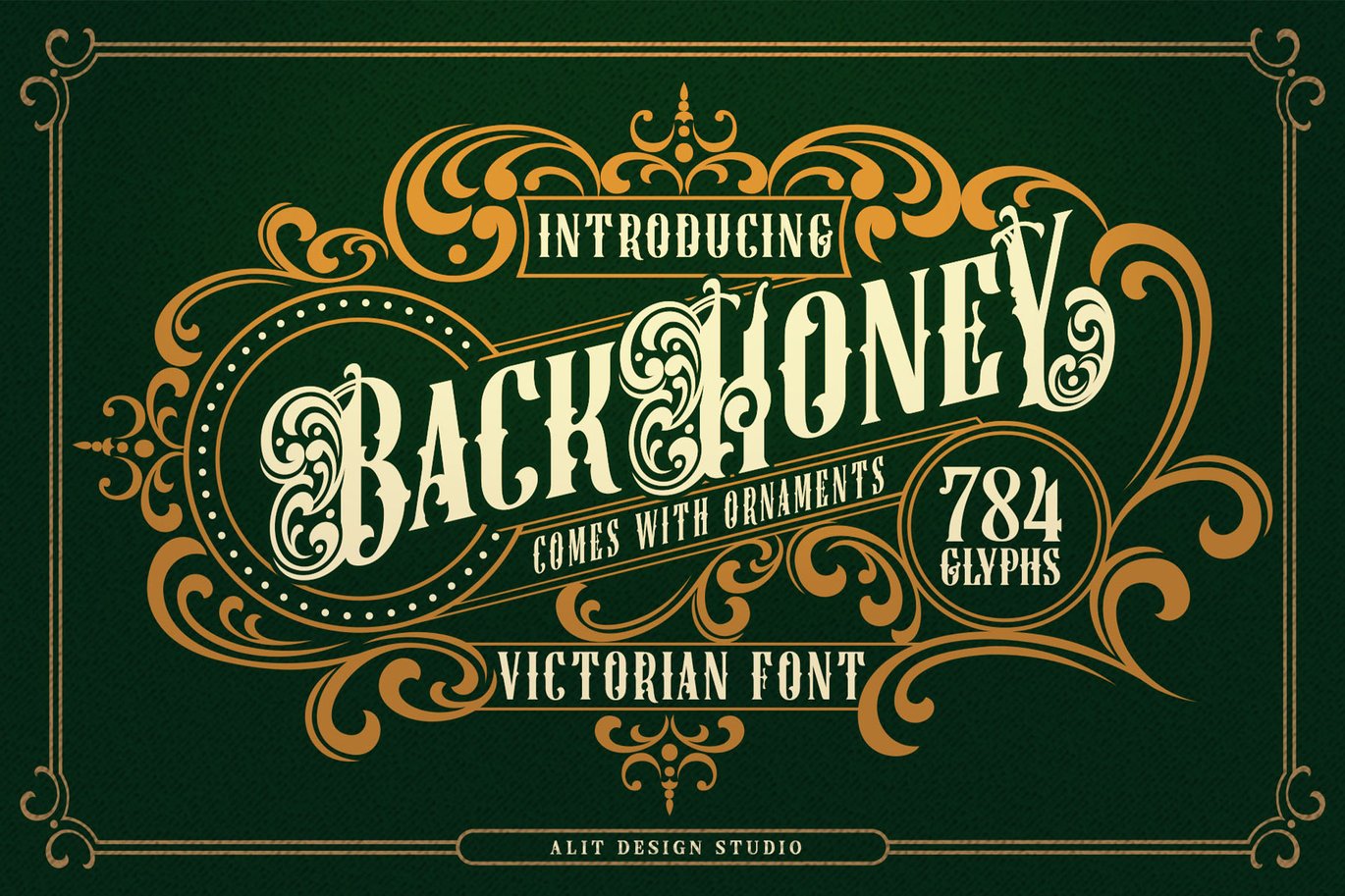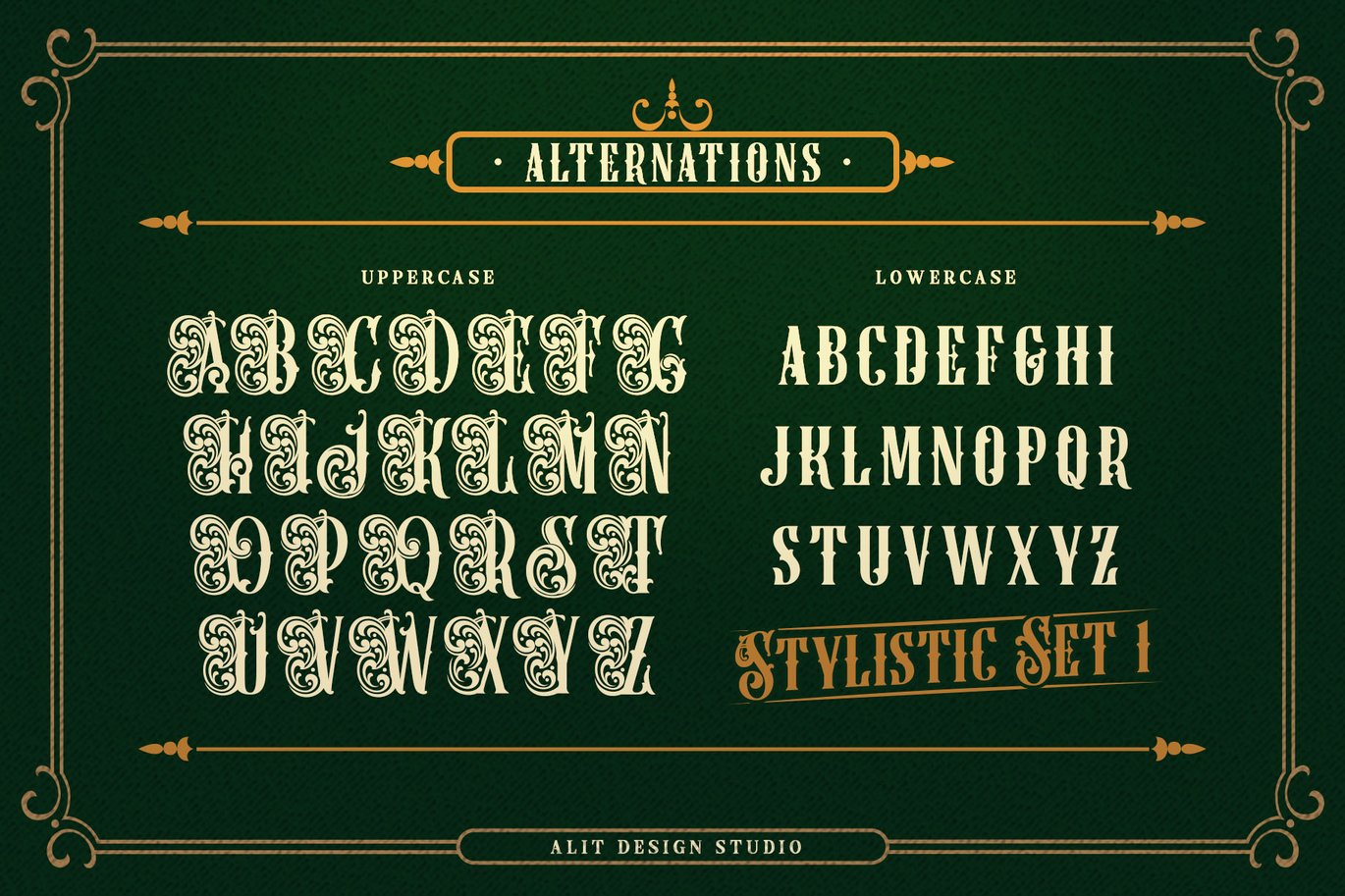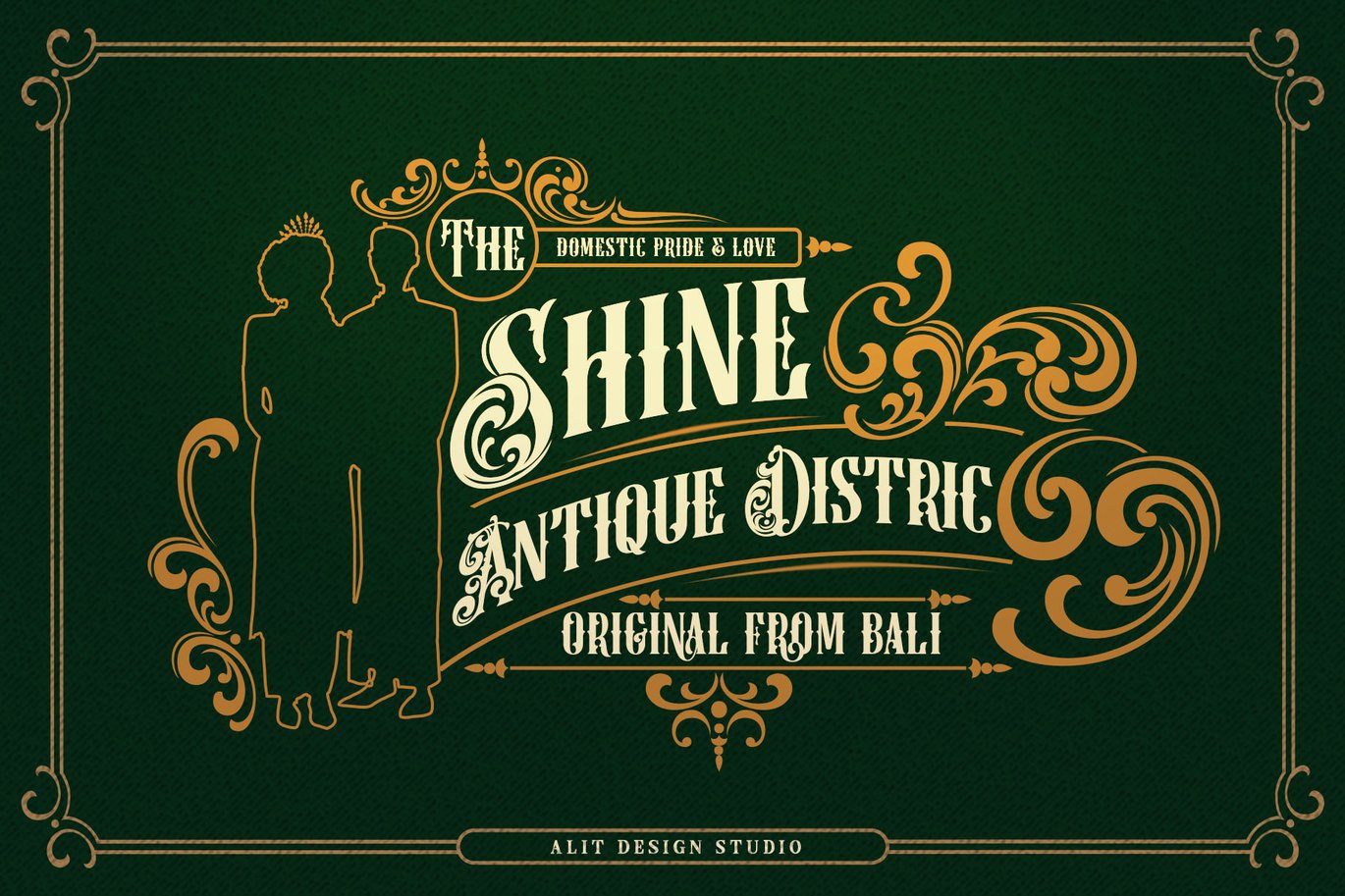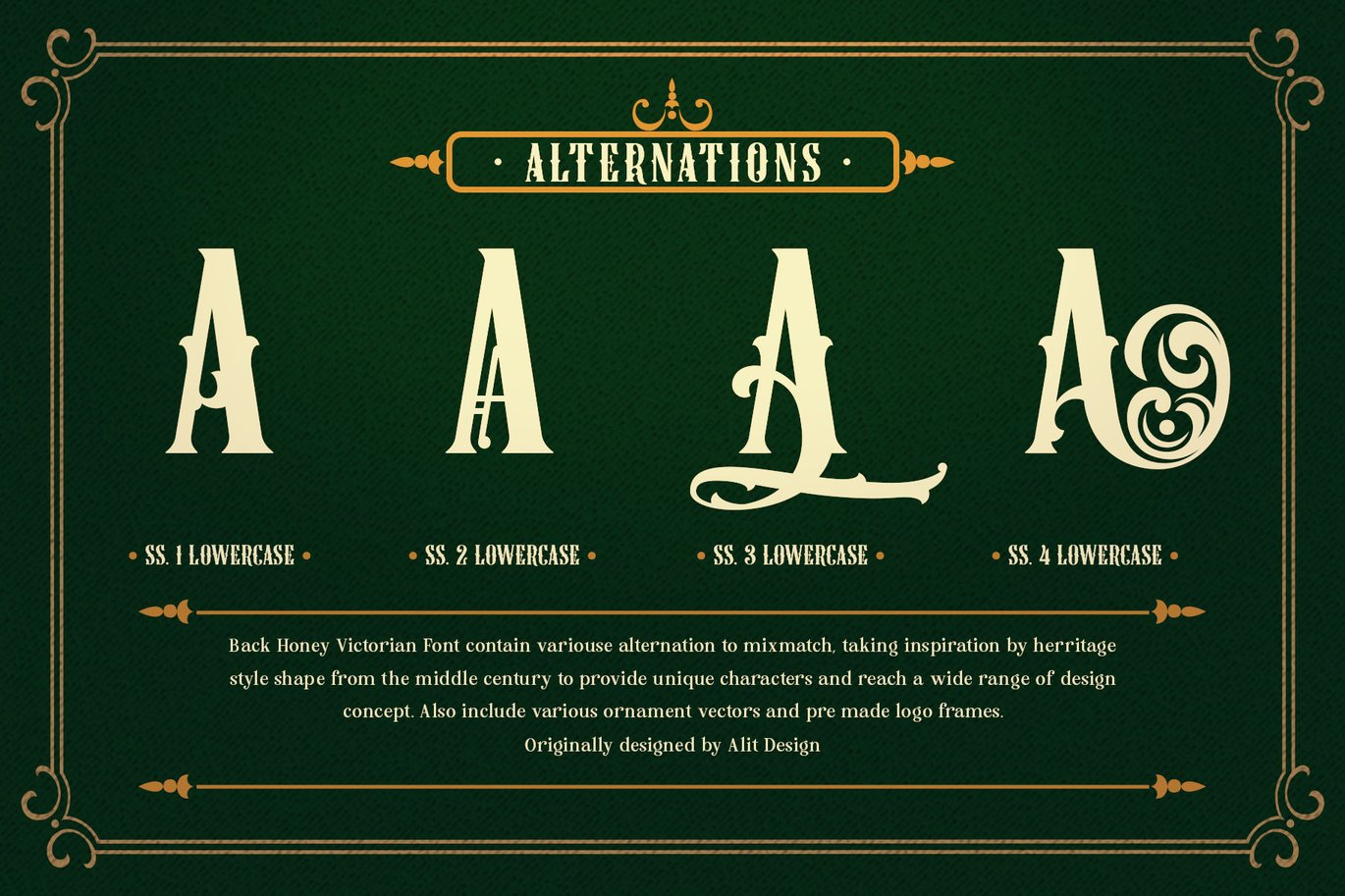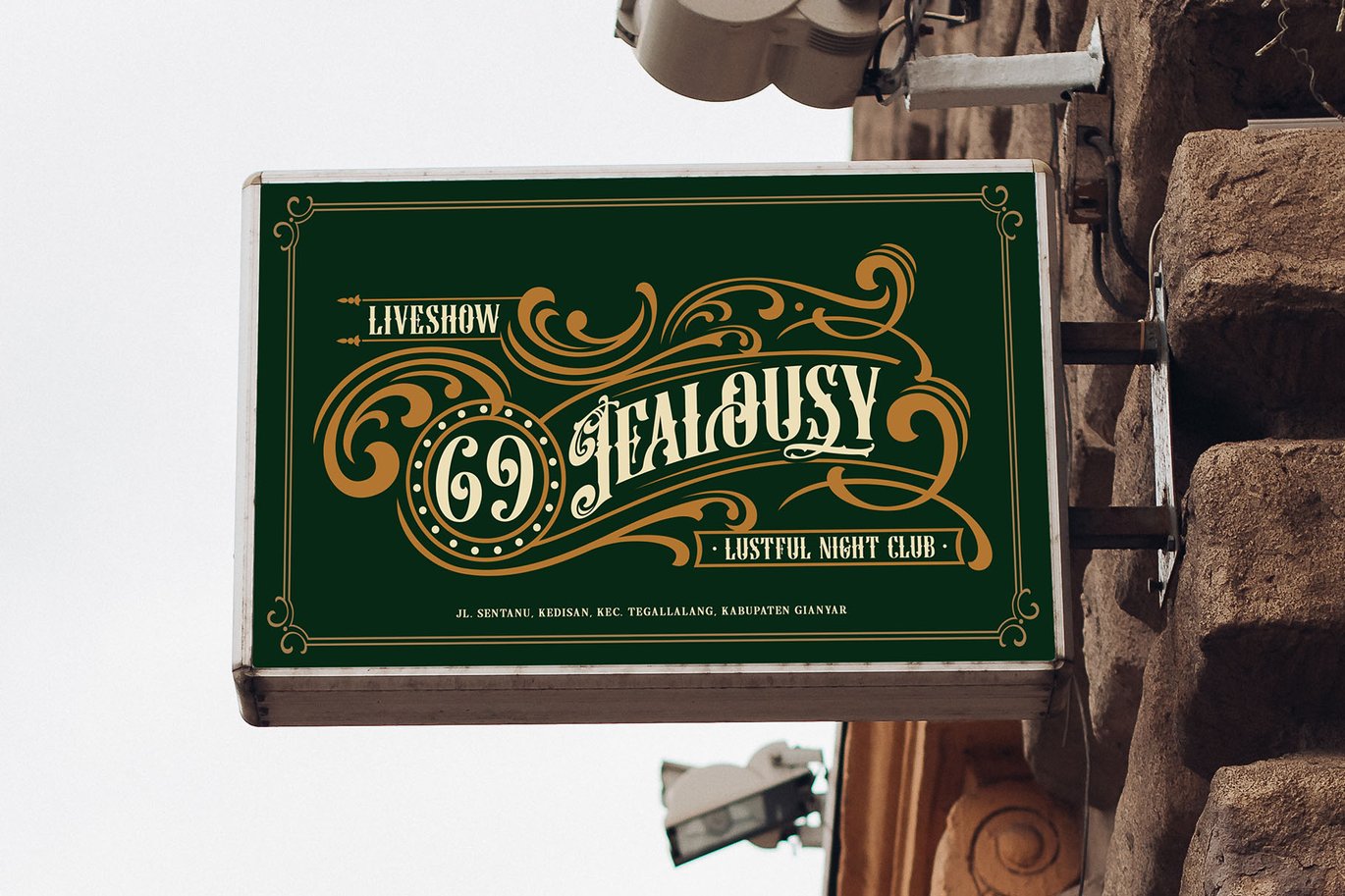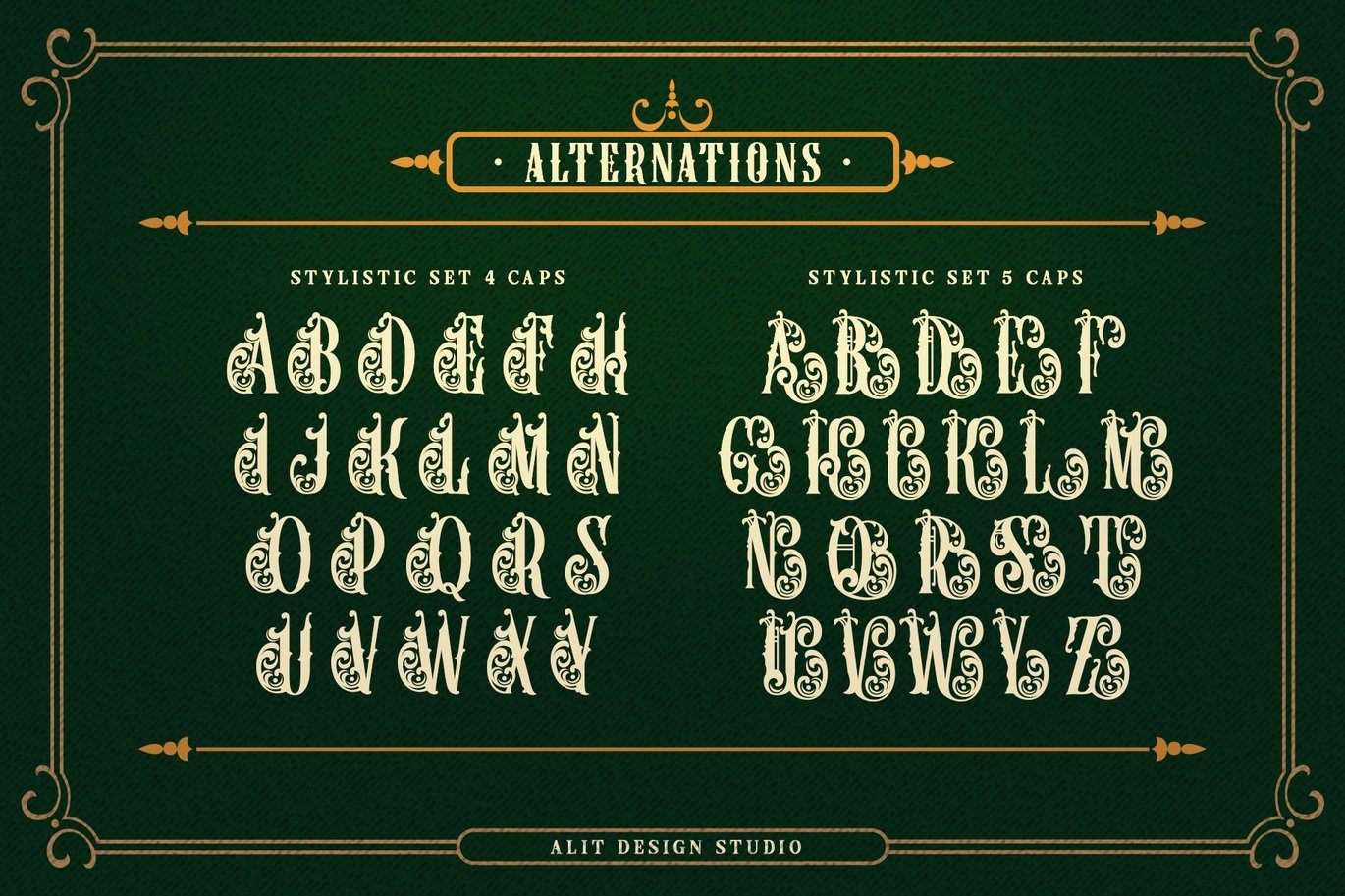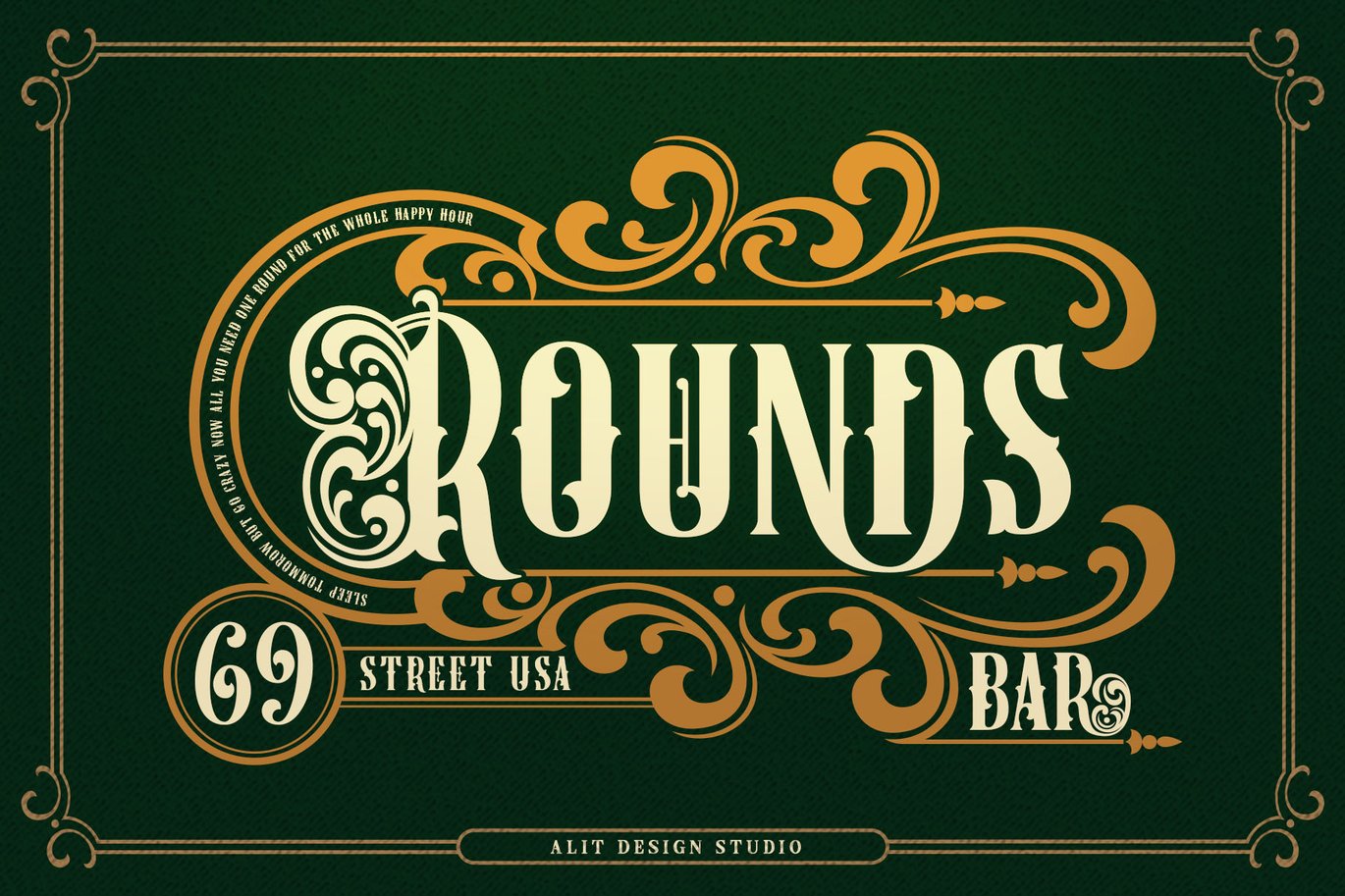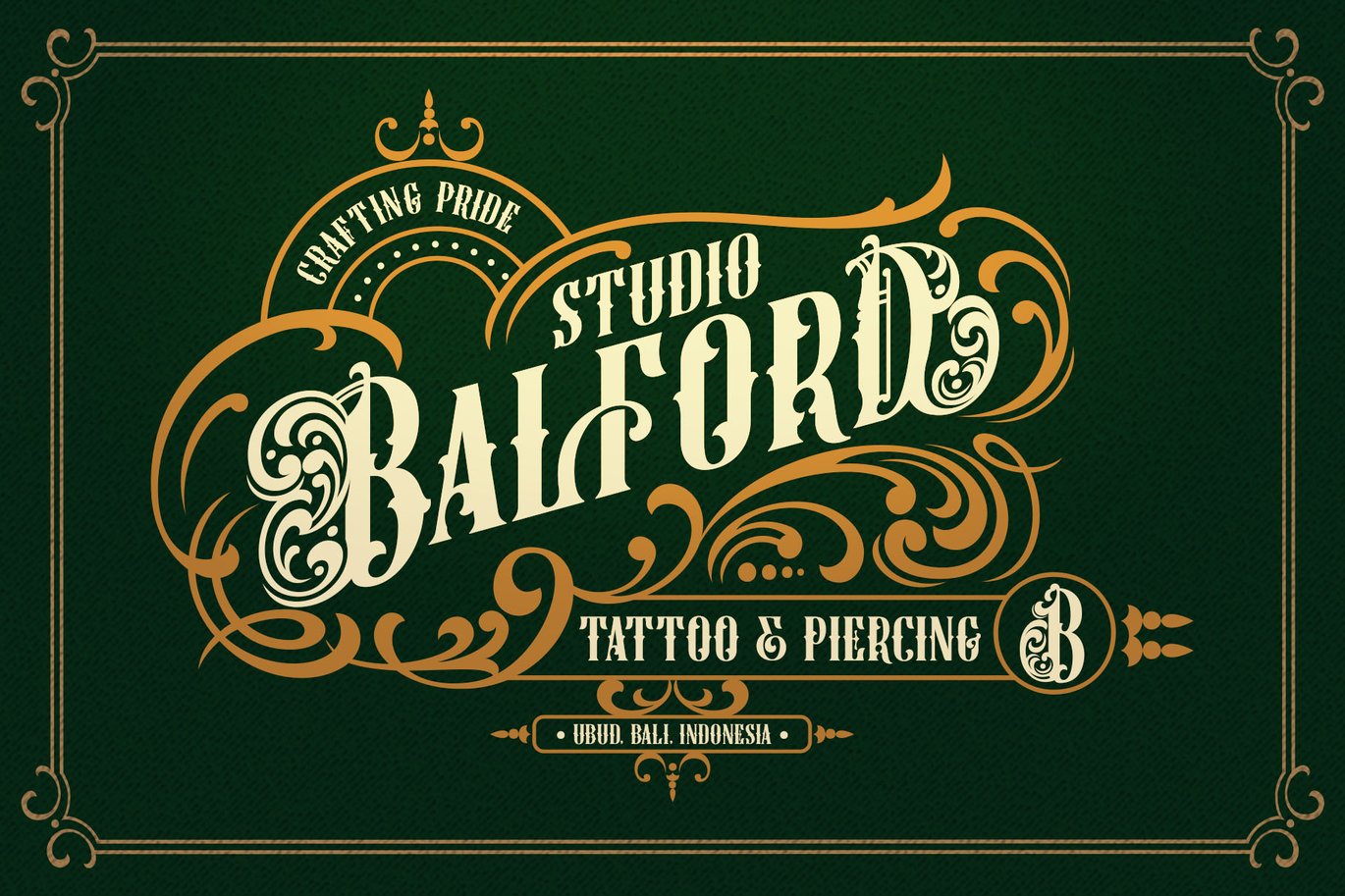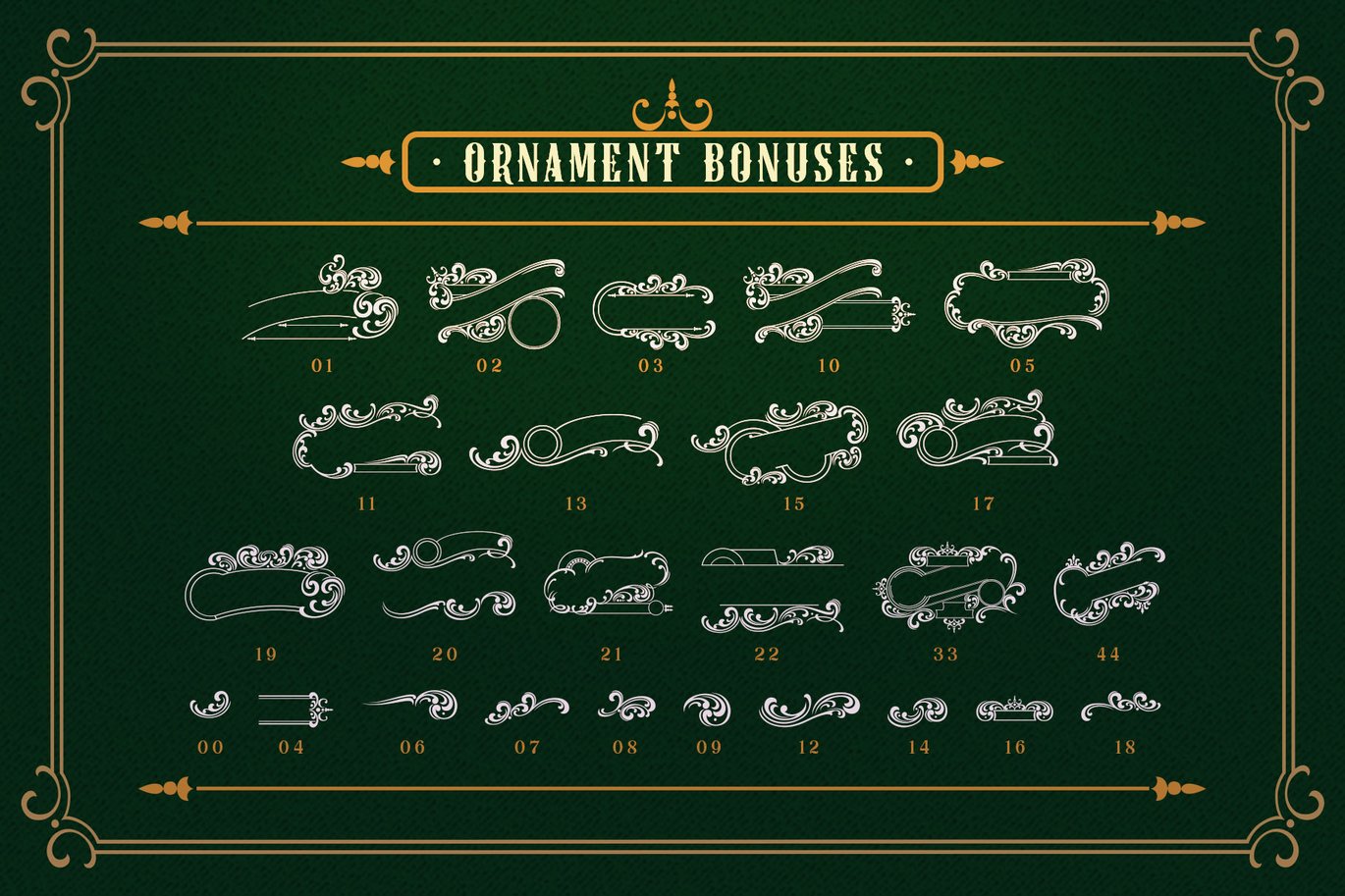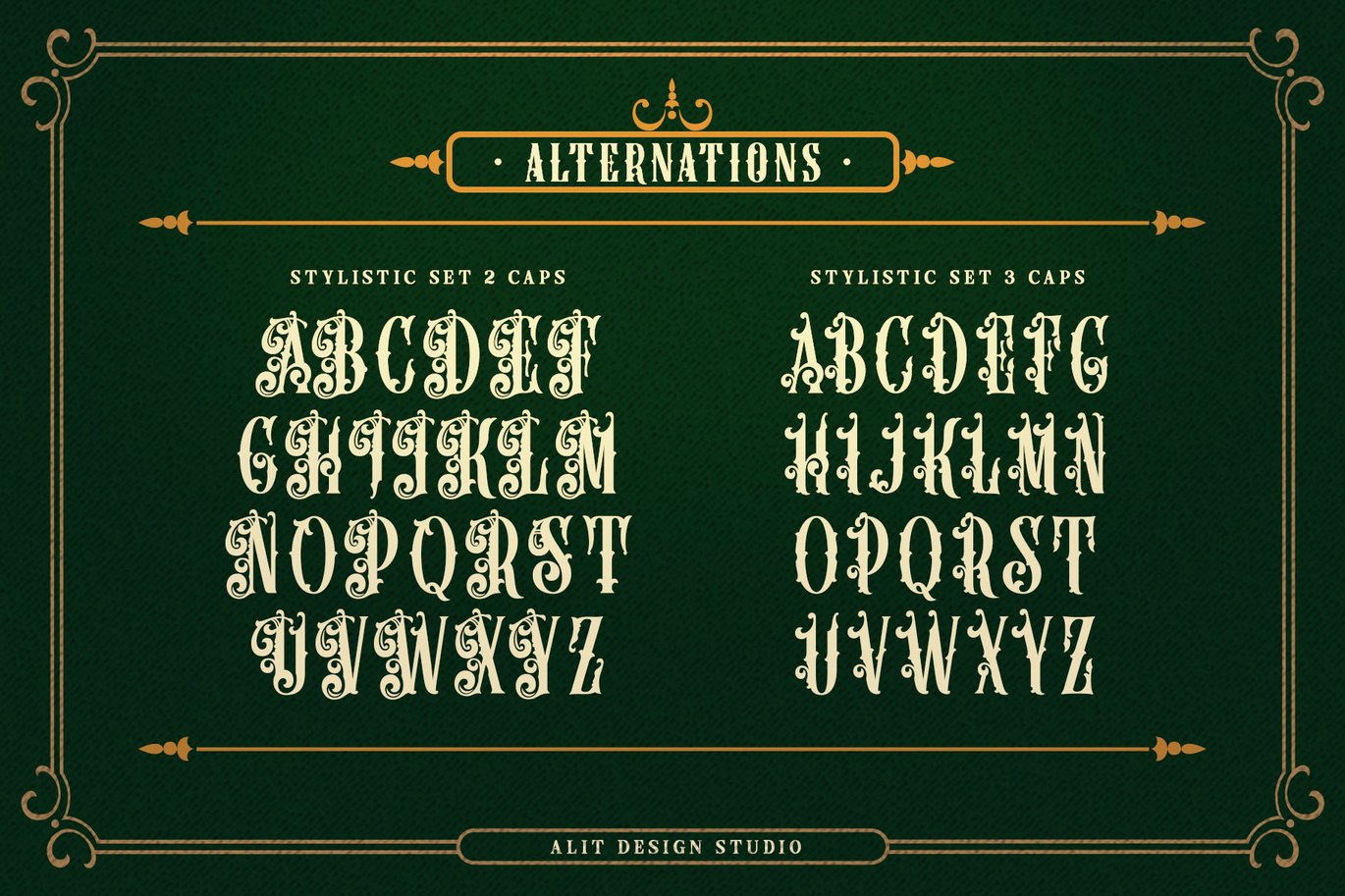
Black Honey Victorian Font
Product Description for Black Honey Victorian Font
Introducing Black Honey Victorian Font, a meticulously crafted typeface that brings the essence of Victorian elegance to modern design. This luxurious serif font combines vintage charm with intricate ornamentation, ideal for projects that call for a touch of classic sophistication.
Black Honey Victorian Font is designed to capture the opulent details of the Victorian era, offering an array of features that allow endless creativity. With 784 beautifully designed characters, each letter exudes the charm of historical type while still providing exceptional legibility and style.
- Extensive Character Set: Featuring 784 characters, including upper and lowercase letters, punctuation, and numerals, this font is fully equipped to handle diverse creative needs.
- Many Alternatives: Offering a variety of alternative characters, allowing you to customize the look and feel of your text with a range of stylistic options.
- Elegant Ligatures: Special ligatures add seamless connections between letters, creating smooth and sophisticated word formations.
- Decorative Swashes: Unique swash options let you add expressive flourishes to letters, perfect for logos, invitations, and decorative headlines.
- Multilingual Support: Designed with international creators in mind, Black Honey Victorian Font supports multiple languages, making it a versatile choice for global projects.
Perfect for:
- Wedding Invitations
- Branding and Packaging
- Editorial Designs
- Book Covers
- Signage and Posters
- Any project that requires a vintage, timeless touch
Embrace the elegance of the past with Black Honey Victorian Font, where historical artistry meets modern functionality.